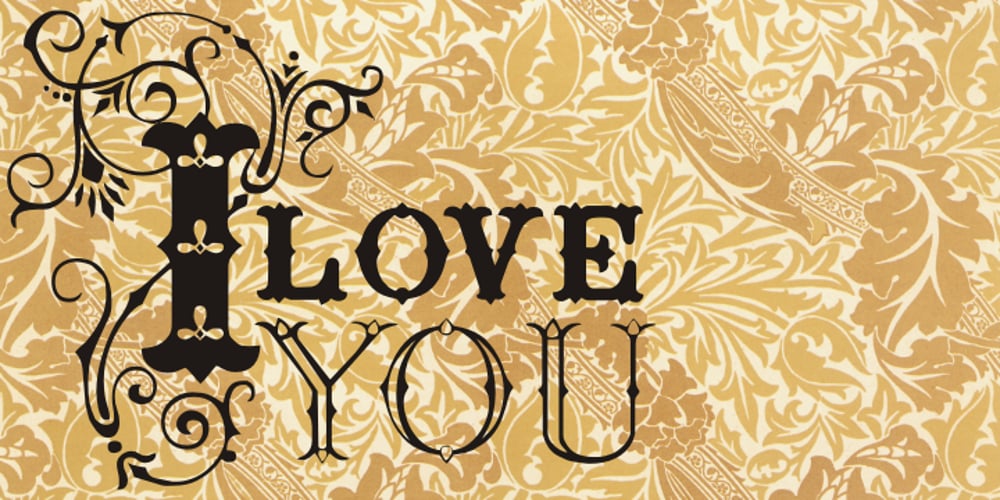
Surrey
Surrey font
Surrey Font Family was designed by Iza W and published by Intellecta Design. Surrey contains 7 styles and family package options. Surrey is a collection of seven different decorative fonts, all uppercase letter designs, great display face for headers and antique-like projects. It’s another Intellecta’s best-seller, a classic vintage design remastered with our feeling to ancient things.